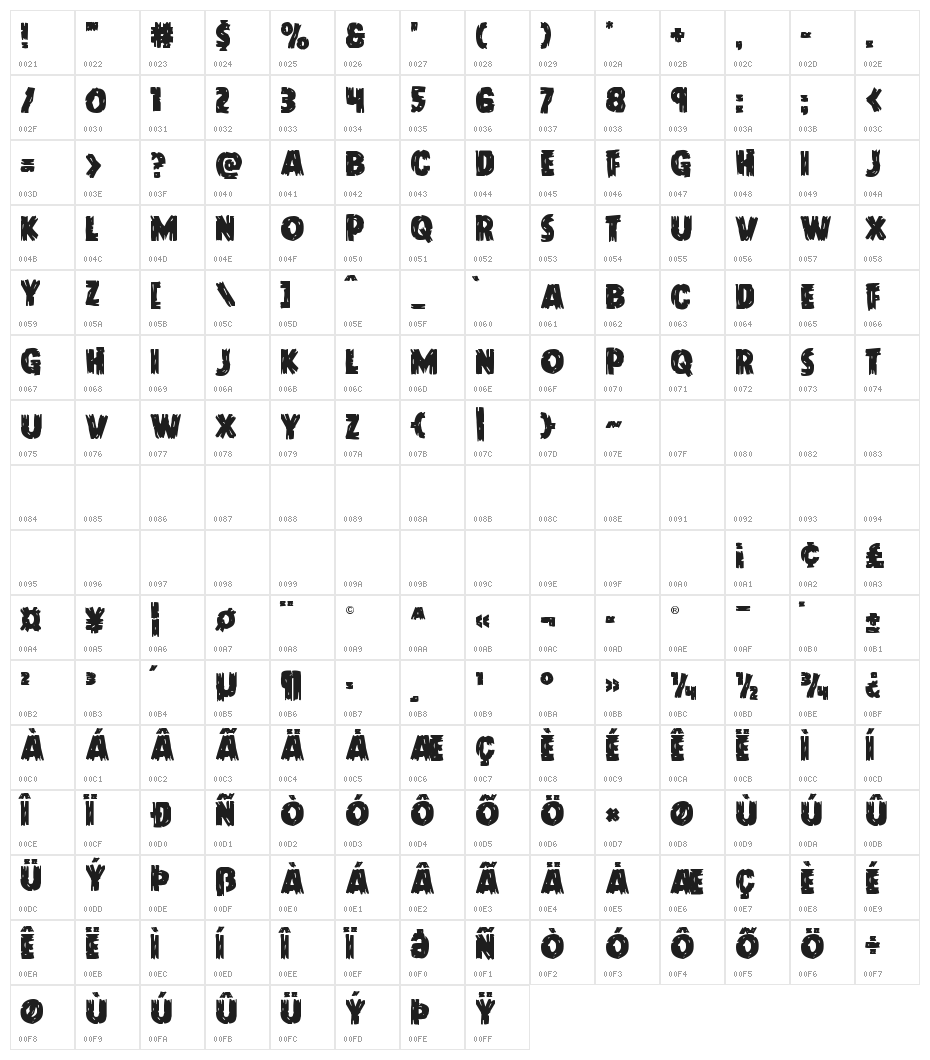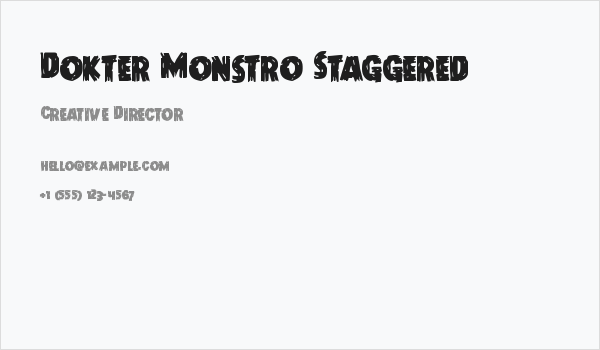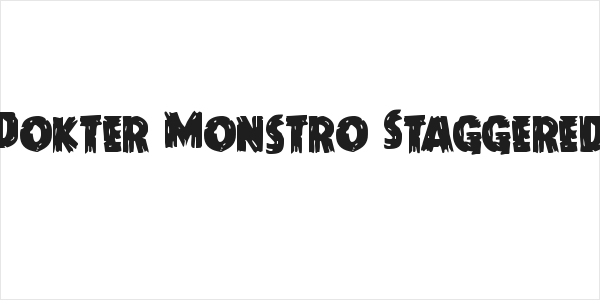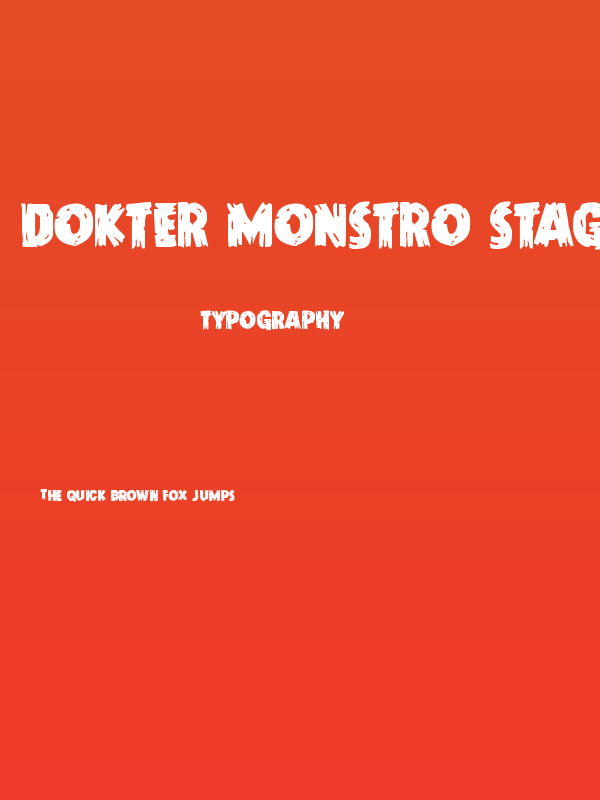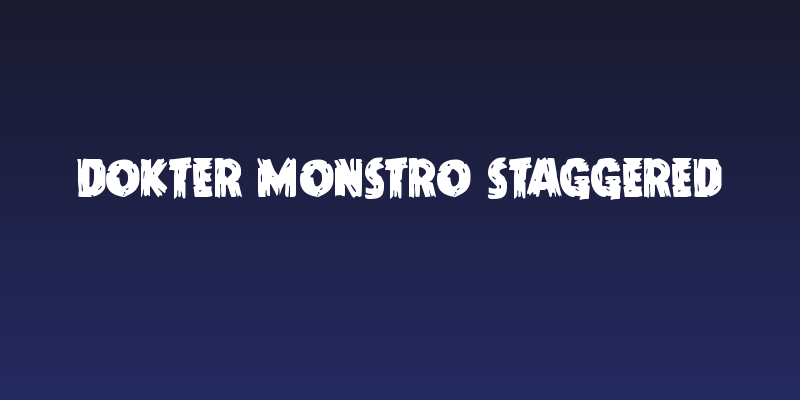
Dokter Monstro Staggered Font
Dokter Monstro Staggered Description
This font features a bold and jagged design, reminiscent of a horror or thriller theme. The characters are heavily stylized with uneven edges and a distressed appearance, giving them a chaotic and energetic feel. The uppercase and lowercase letters maintain a consistent style, with exaggerated serifs and a sense of movement. Numbers and special characters follow the same design principles, ensuring a cohesive look across all glyphs. The font's unique style makes it stand out, ideal for projects requiring a dramatic and impactful visual presence.
| Use Case | Headlines, Posters, Logos |
| Proposed Projects | Perfect for horror movie posters, Halloween event flyers, edgy graphic design projects, and any creative work that requires a dramatic and eye-catching font. |